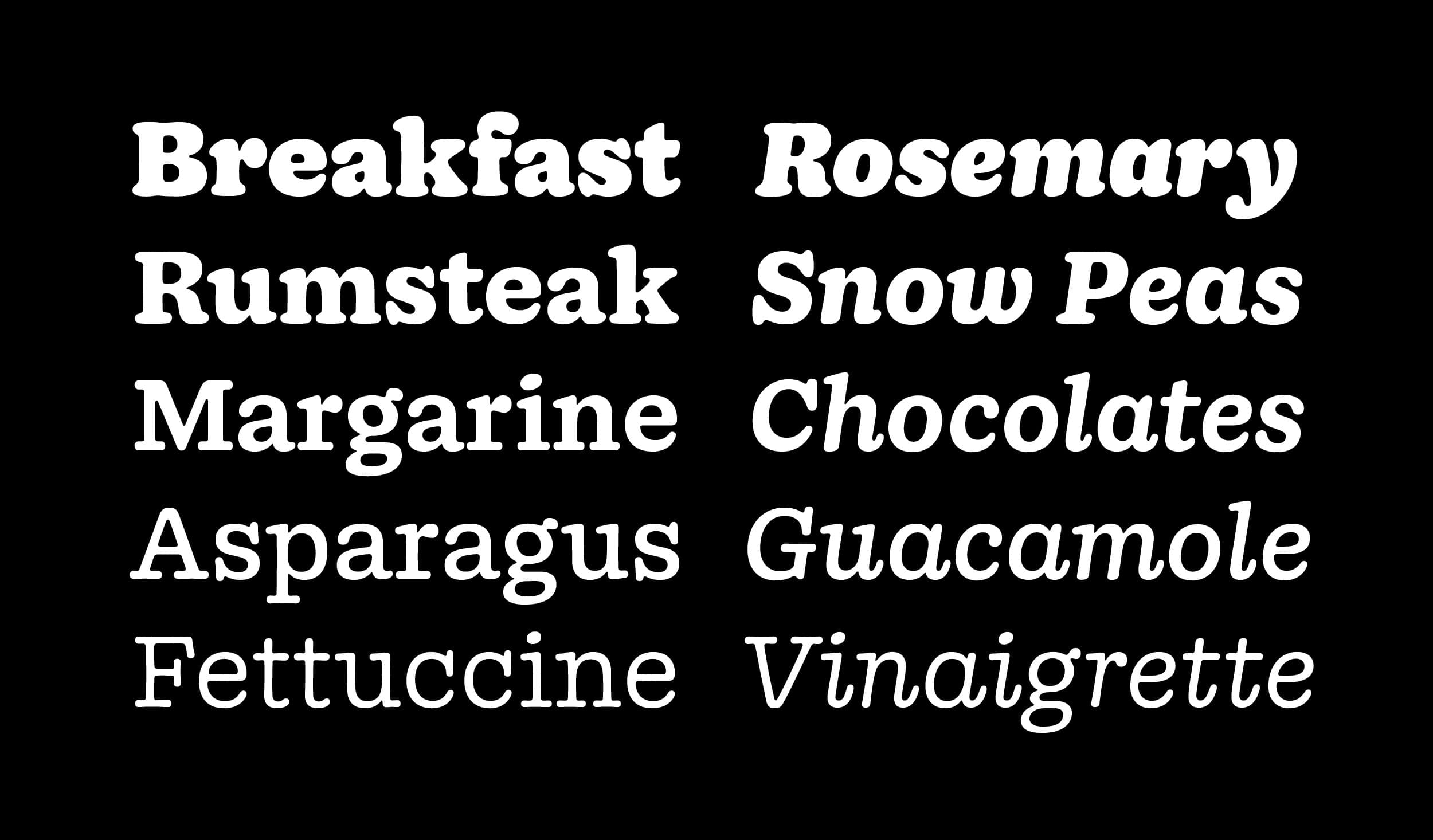
Multi-instrumentalists J. Albert and Will August Park map out a shared universe of unreleased original material in addition to other autumnal tracks. Our typeface Doyle—and a cameo from Sharp Grotesk—connects the dots on the cover and tracklist.
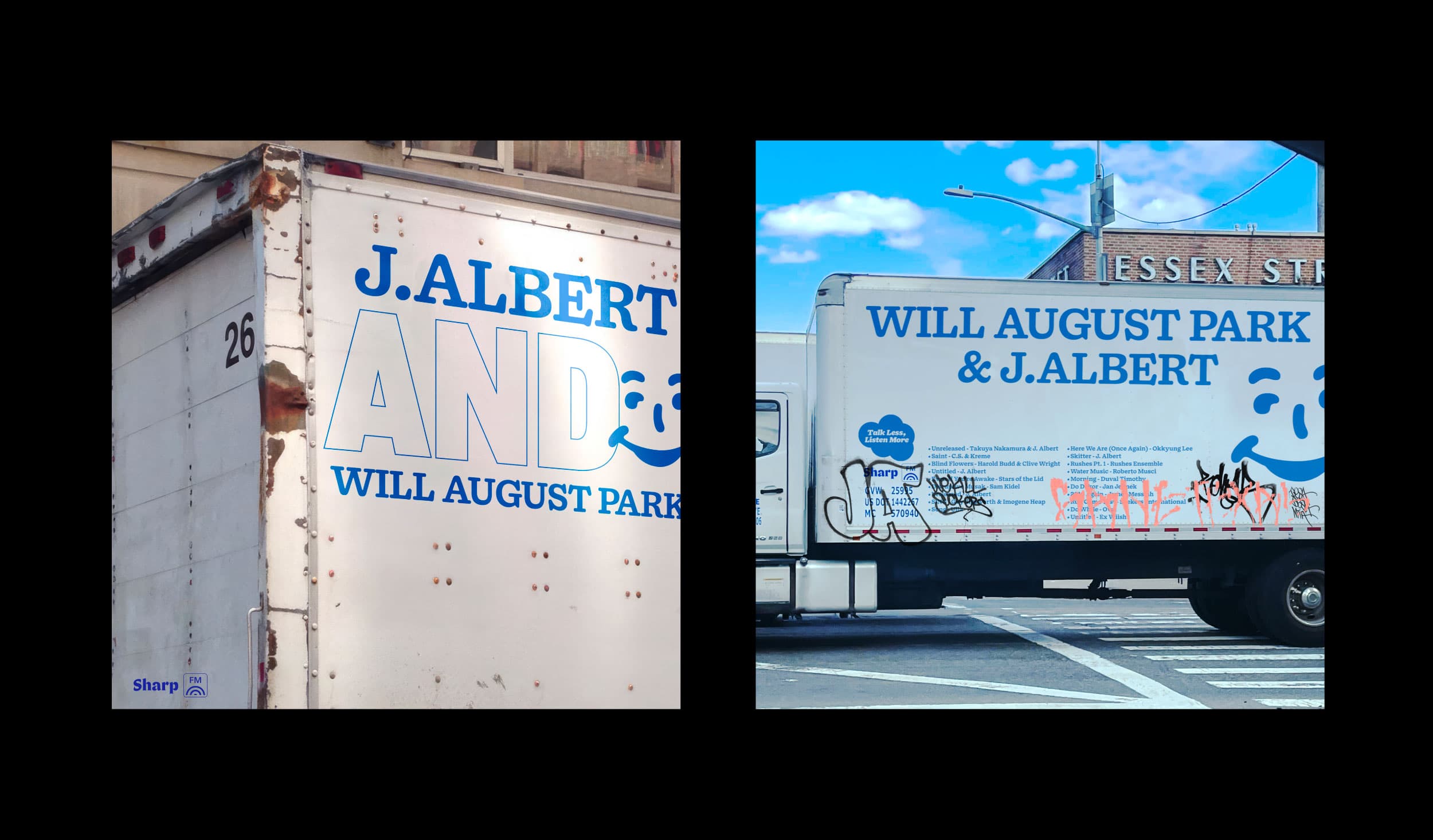
When it goes well, collaboration is alchemy. This is true especially in the context of creative projects, where the creative component—already a complicated and easily fraught space—is entwined with personal and business considerations. If communication is the key to a good relationship, then a common language is the tool that must be mutually understood and wielded. This is the theme that J. Albert and Will August Park bring to their work. Of course, it's relevant for our work as type designers, too.
"This mix is a slurry of unreleased and/or unfinished recordings from Takuya Nakamura, Ex Wish, & myself with some of Will’s tasteful selections laced throughout," says J. Albert, the alias of Jiovanni Nadal. "We wanted to honor the Zodiac theme of the Sharp Mixes as much as possible. When I think of Libra, it represents balance, which reads as indecisiveness at times, but ultimately an openness and willingness towards understanding whatever spectrum is being appraised."
J Albert and Will August Park initially met as solo arts billed for the same Brooklyn show in 2021 and felt compelled to get in the studio together after listening to one another's music. In the spring of 2023, they released Flat Earth, a five-song EP. The unification of Will’s impressionistic solo piano compositions and J. Albert's blunted electronic music style lent itself to a holistic workflow, and in this flow they discovered their commonality in taste and musical expression. Their mix for Sharp FM offers an avenue for their continued partnership:
"The spectrum represented in this mix spans from the most familiar sonics such as voice and piano, to more abstracted and complex sounds that can only be created with technology. The composition, although still lending itself more to a traditional mix format, intends to highlight the ephemera of abstracting language; and its (language’s ie. music, english, mathematics) propensity towards this abstraction. We tried to incorporate these themes throughout the track selection process."
This mix sparkles with tonal dips and detours, making one feel like these sounds are being drawn from memory—for this reason, the use of Doyle, which is Lucas Sharp's homage to Cooper Black, is strangely fitting. We also wanted to highlight the fact that these two live and work in New York City, so the vernacular and canvas of truck signage—ubiquitous throughout every borough and themselves literal vehicles of communication—seemed like the perfect way to capture the diversity of these songs.
Language was a key conceptual point for Jio and Will as they put this mix together, and it feels like a soundtrack for walking through NYC, a city rich with signage—on shops, trucks, people—that can speak volumes to the receptive wanderer. able, and truly at home anywhere.
Delivery trucks are a constant presence throughout New York City, and the vernacular design used in these graphics tends to be simple and charming. Mottos, slogans, and even the design of company mascots are sometimes poetic or accidentally profound. Design decisions often made to deal with a rearview mirror or door handle can come off as ingenious typographic moves. These happy accidents tie-in to our typeface Doyle, which feels at home in the friendly world of delivery truck graphics—it's warm, approachable, and truly at home anywhere.